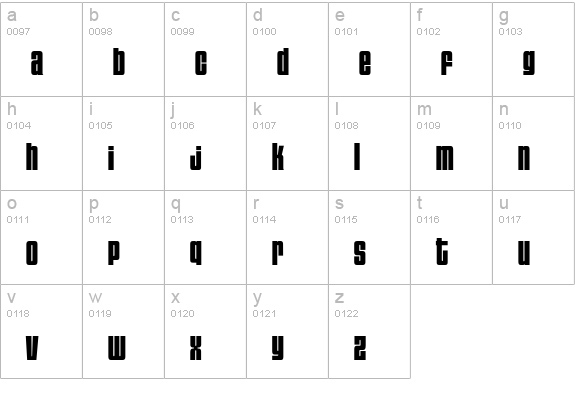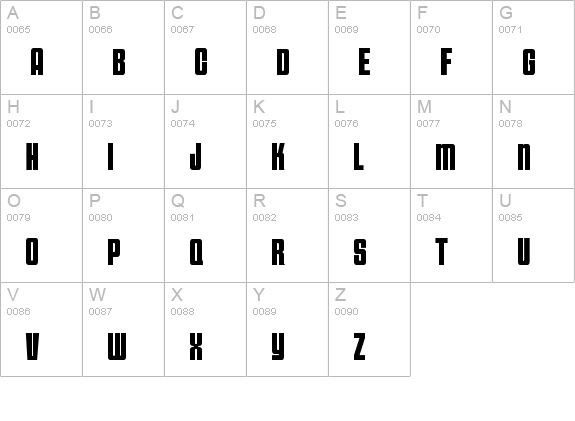
Stark-Bold Font Details
Stark-Bold is a strong, high-contrast variant in the Stark typeface family \xE2\x80\x94 well suited to headlines, attention-grabbing titles, and strong calls-to-action.
Stark-Bold is a modern and sleek font that exudes confidence and strength. With its bold and strong letterforms, this typeface is perfect for making a bold statement in any design project. Whether you're creating a striking poster, a powerful logo, or a standout headline, Stark-Bold will grab attention and leave a lasting impression. This font combines clean lines with a touch of edginess, giving it a distinctive and contemporary look. Its sharp angles and well-defined curves create a visual impact that is both eye-catching and memorable. The bold weight of the letters adds weight and prominence to any text, making it ideal for titles, headings, and emphasis. Stark-Bold is not only visually stunning but also highly versatile. It pairs well with both serif and sans-serif fonts, allowing you to mix and match to create unique and dynamic compositions. Its legibility remains strong even at smaller sizes, making it a reliable choice for body text as well. What sets Stark-Bold apart is that it is freely available to download at FontsMarket.com. This means that you can easily access and use this powerful font in your projects without any cost. Its availability on FontsMarket.com ensures that you can enjoy the benefits of this exceptional font without breaking the bank. So, whether you're a professional designer looking to make a statement or an amateur creator seeking to add a touch of boldness to your work, Stark-Bold is the perfect font for you. Download it for free at FontsMarket.com and let your designs shine with confidence and strength.